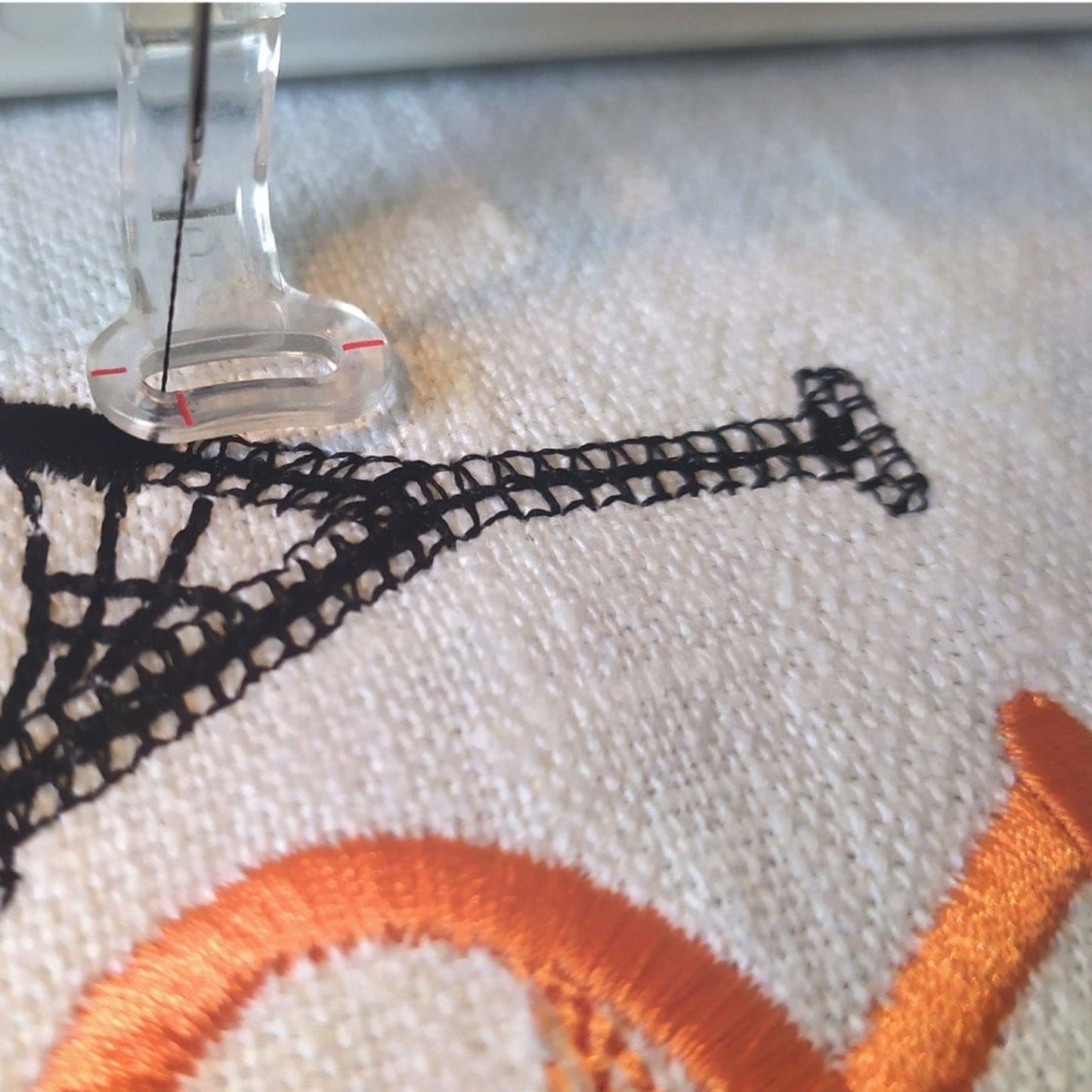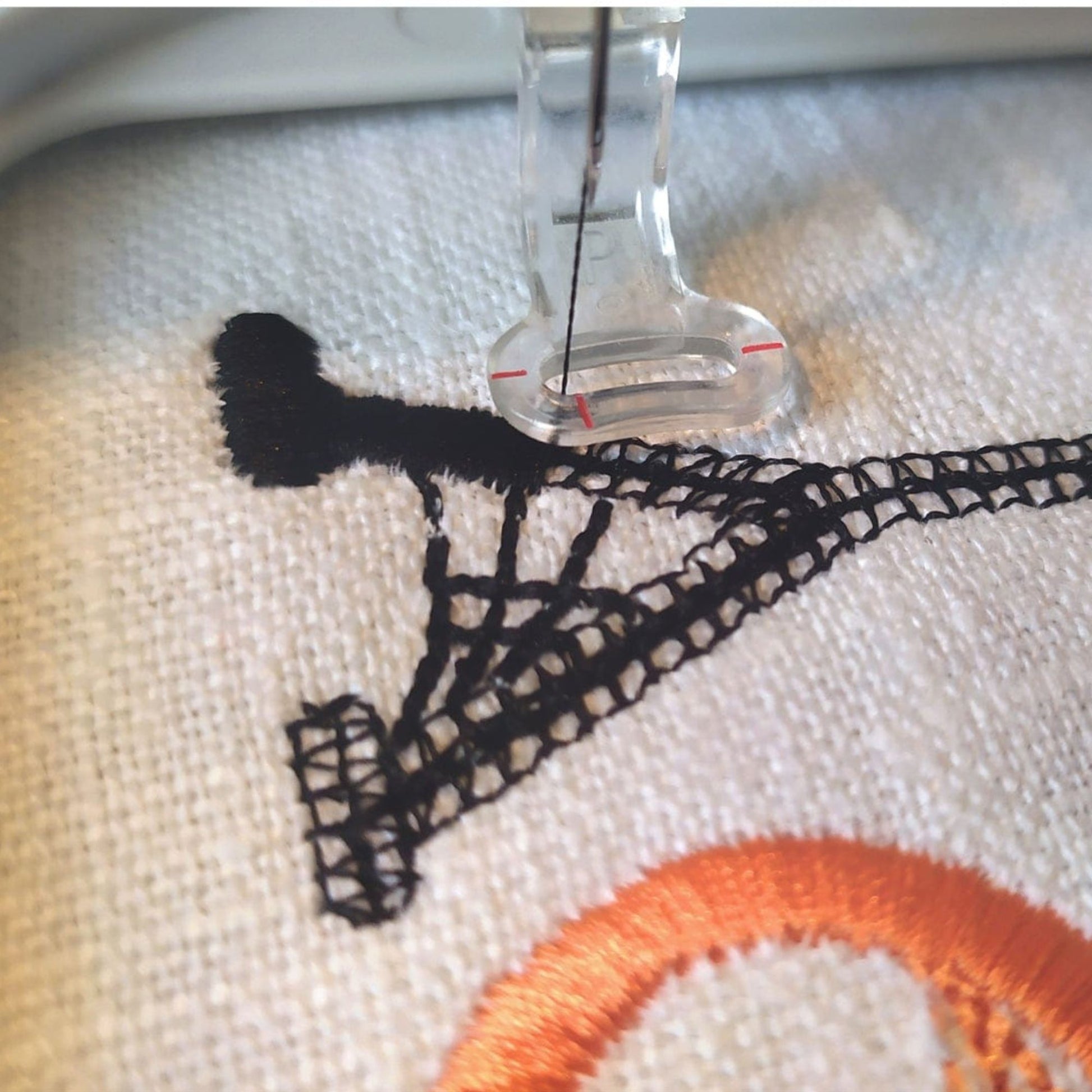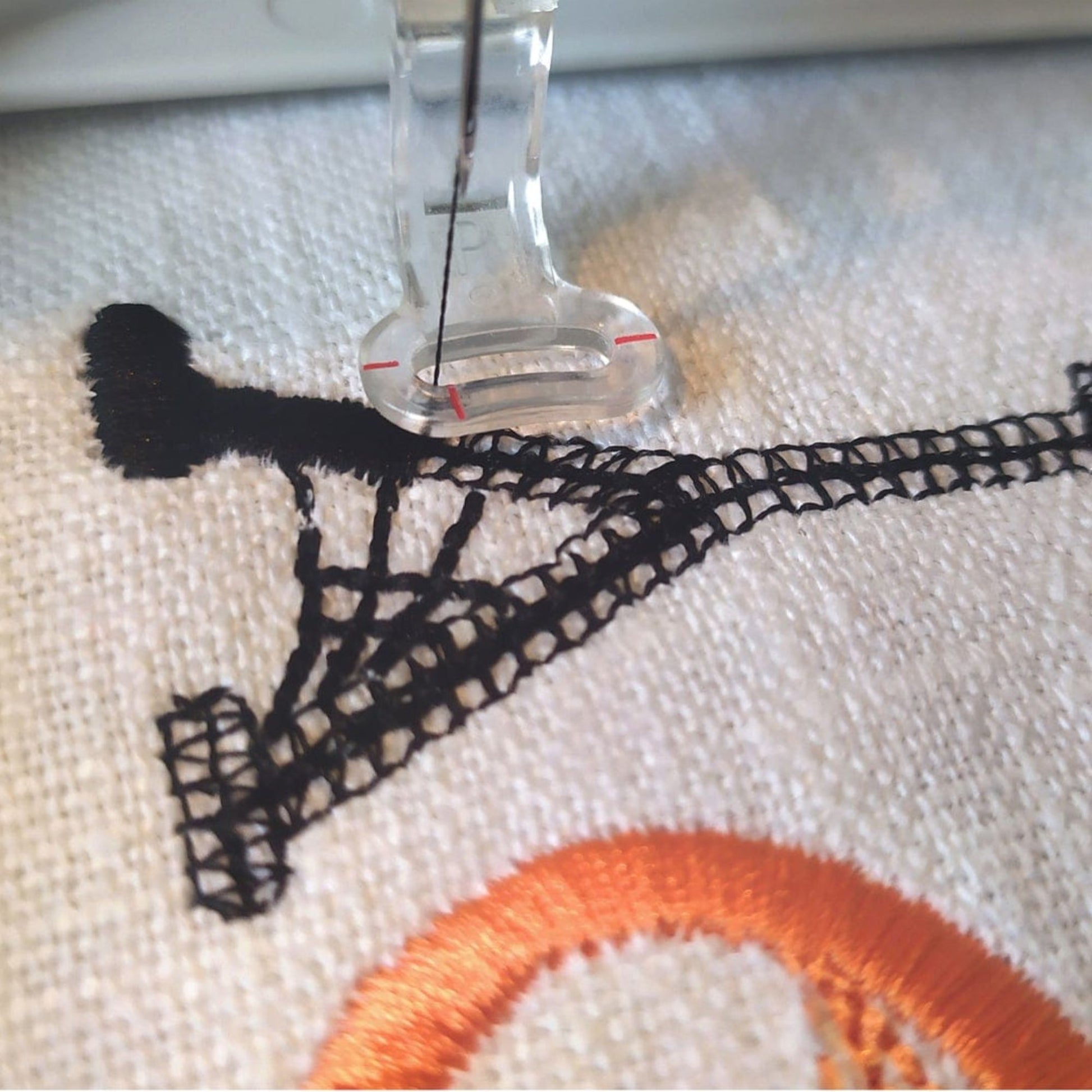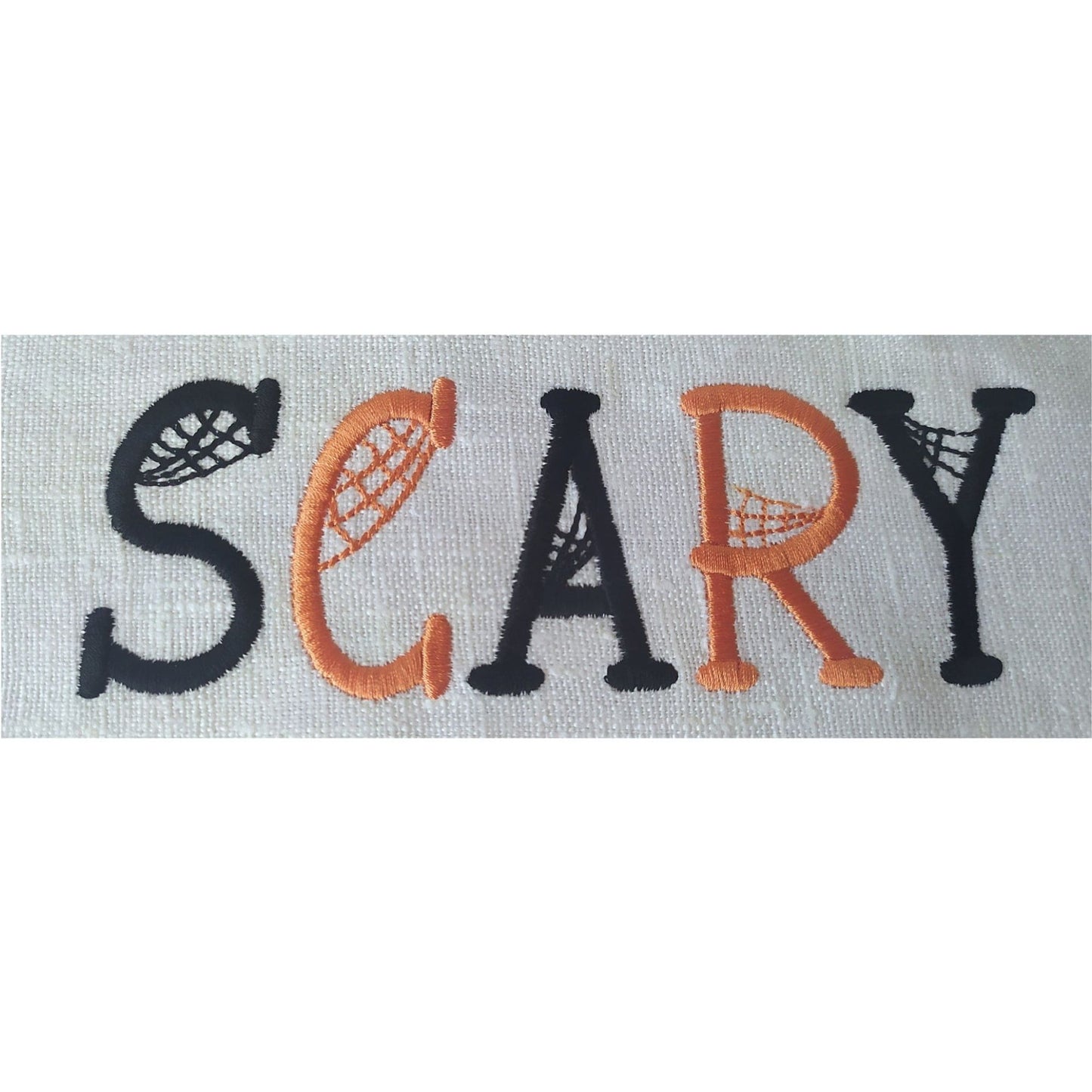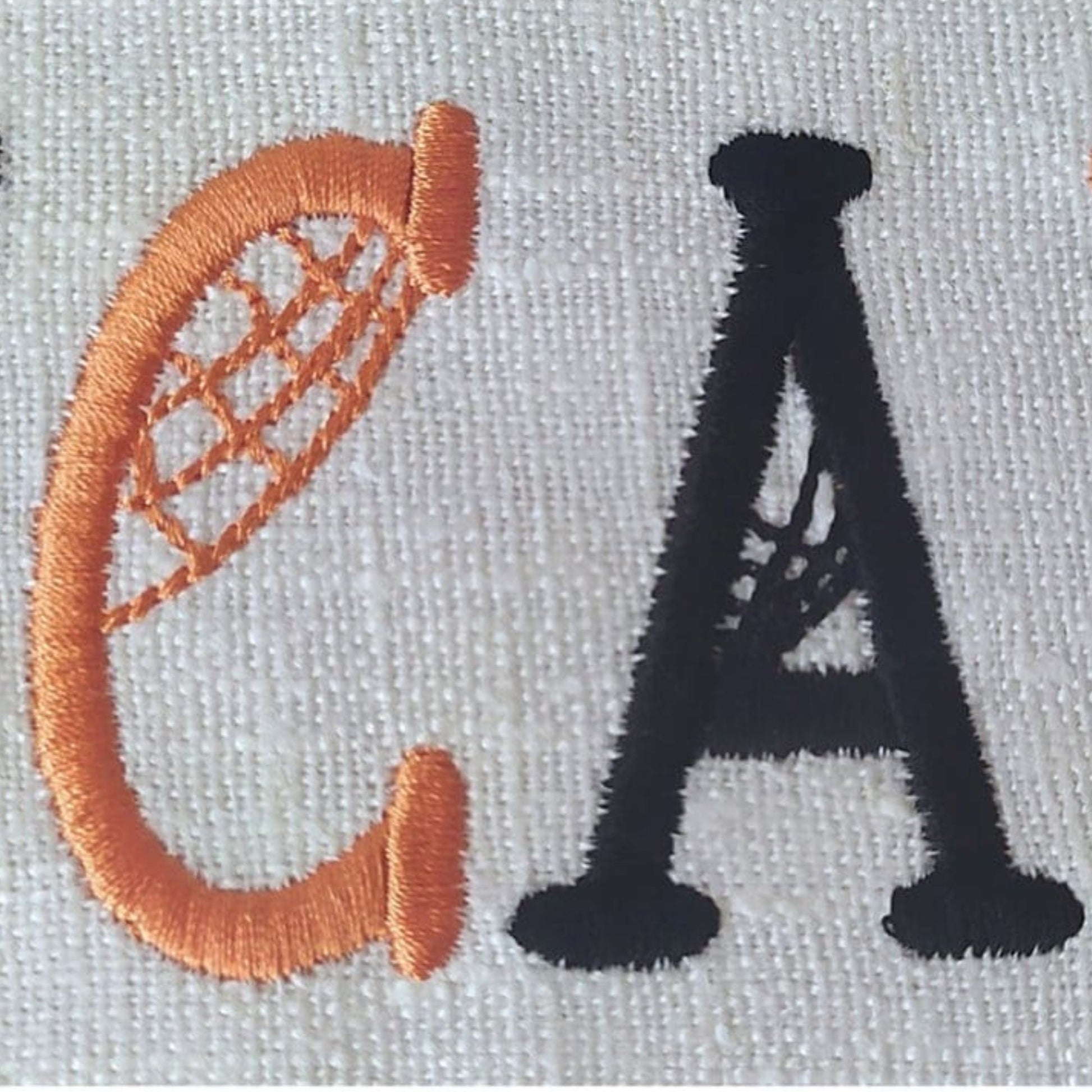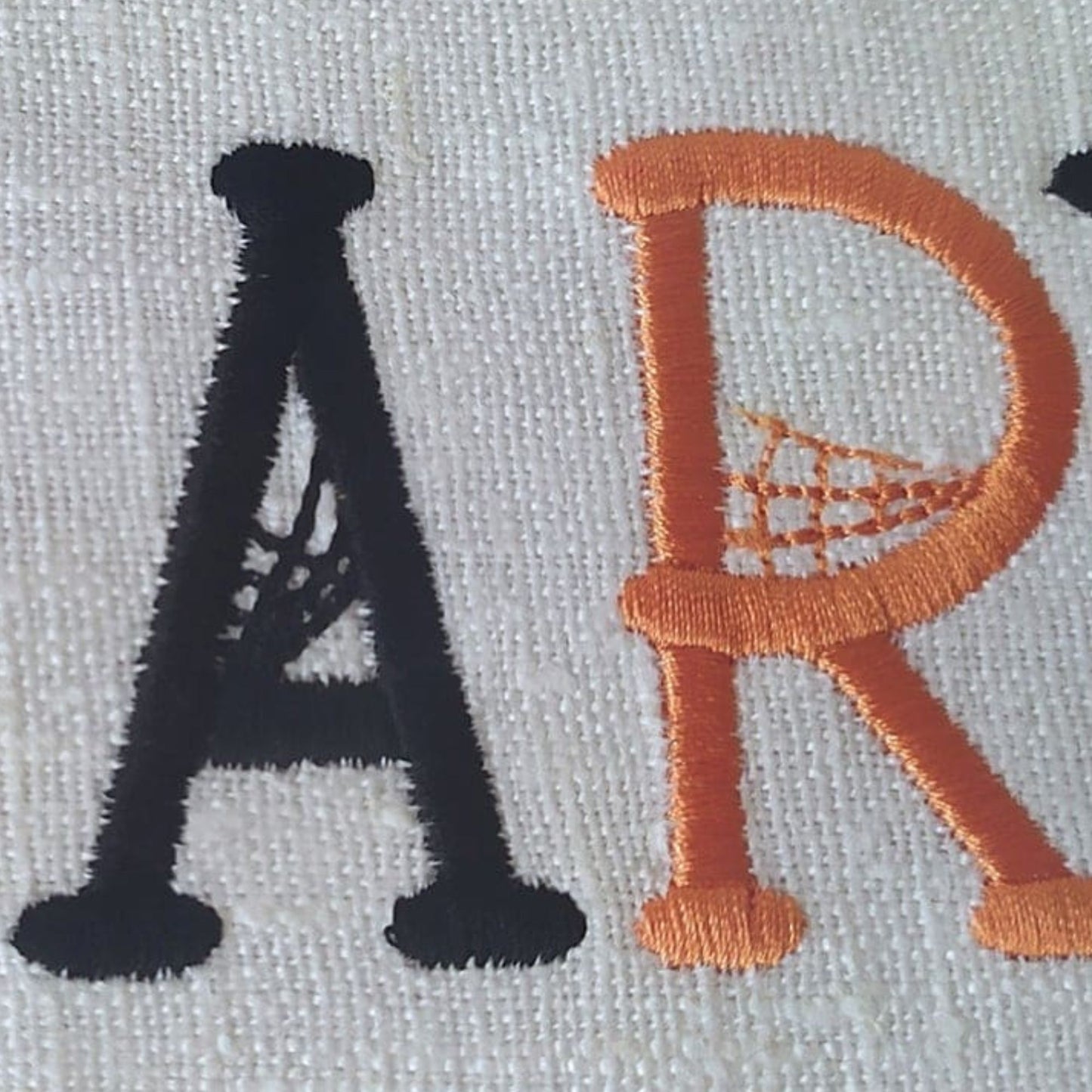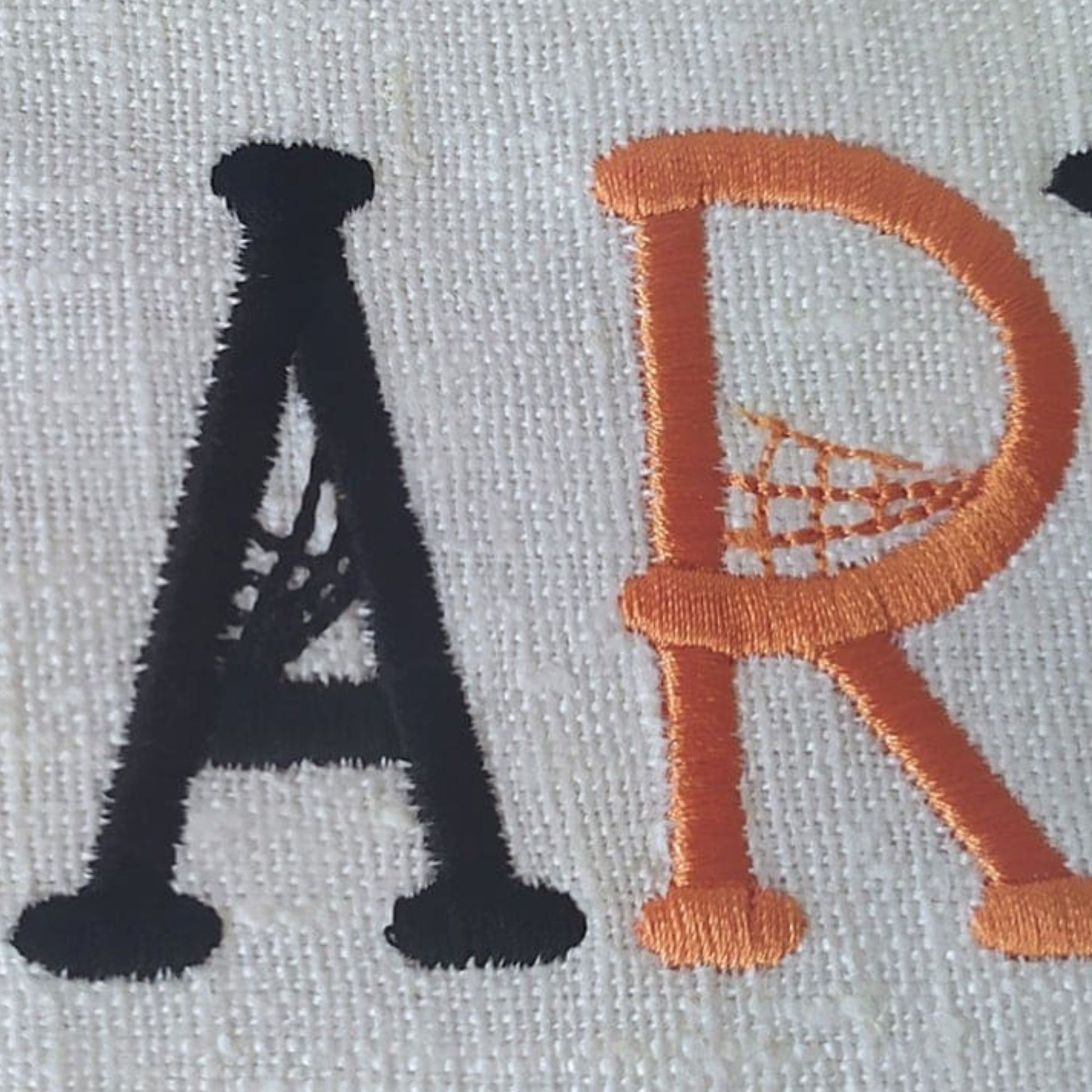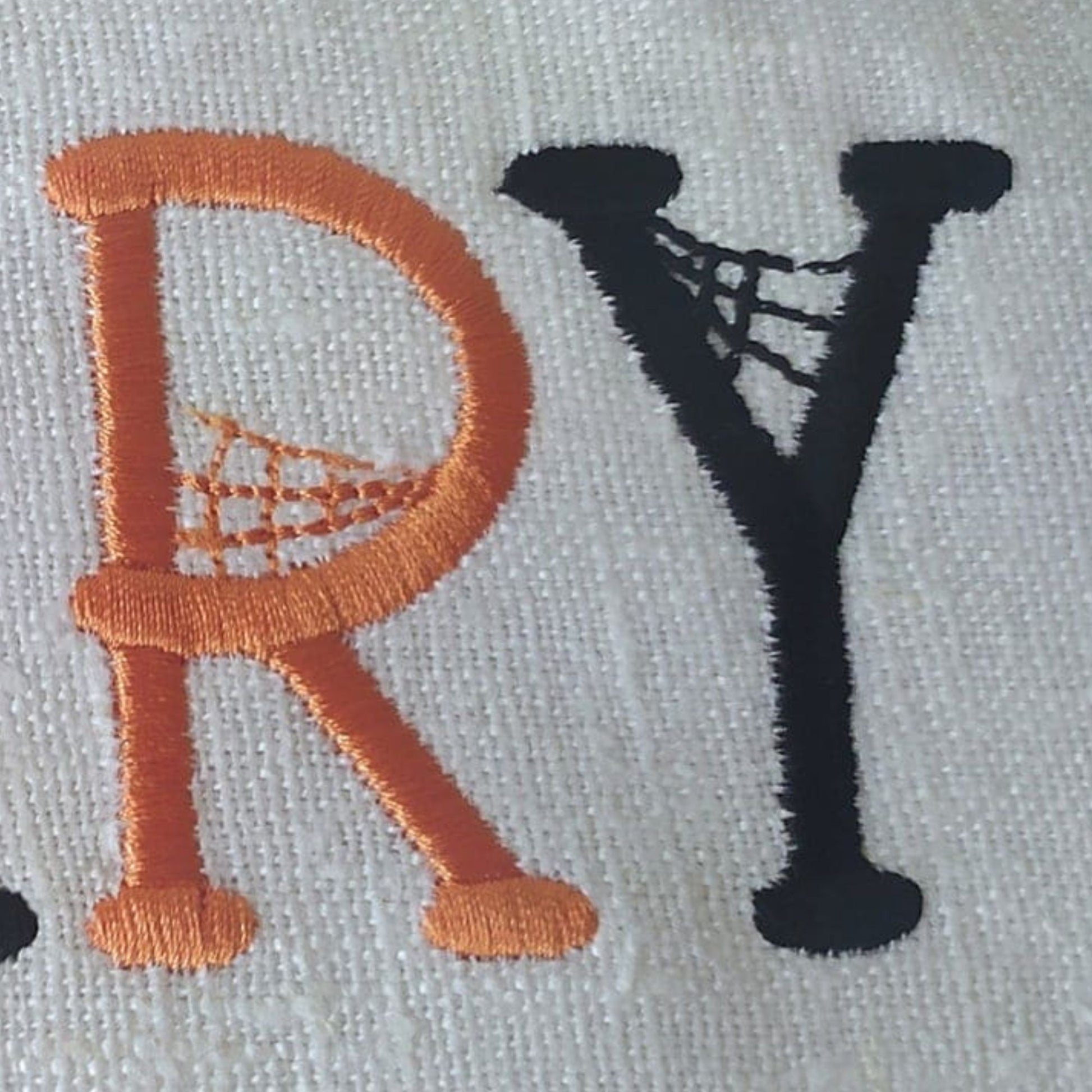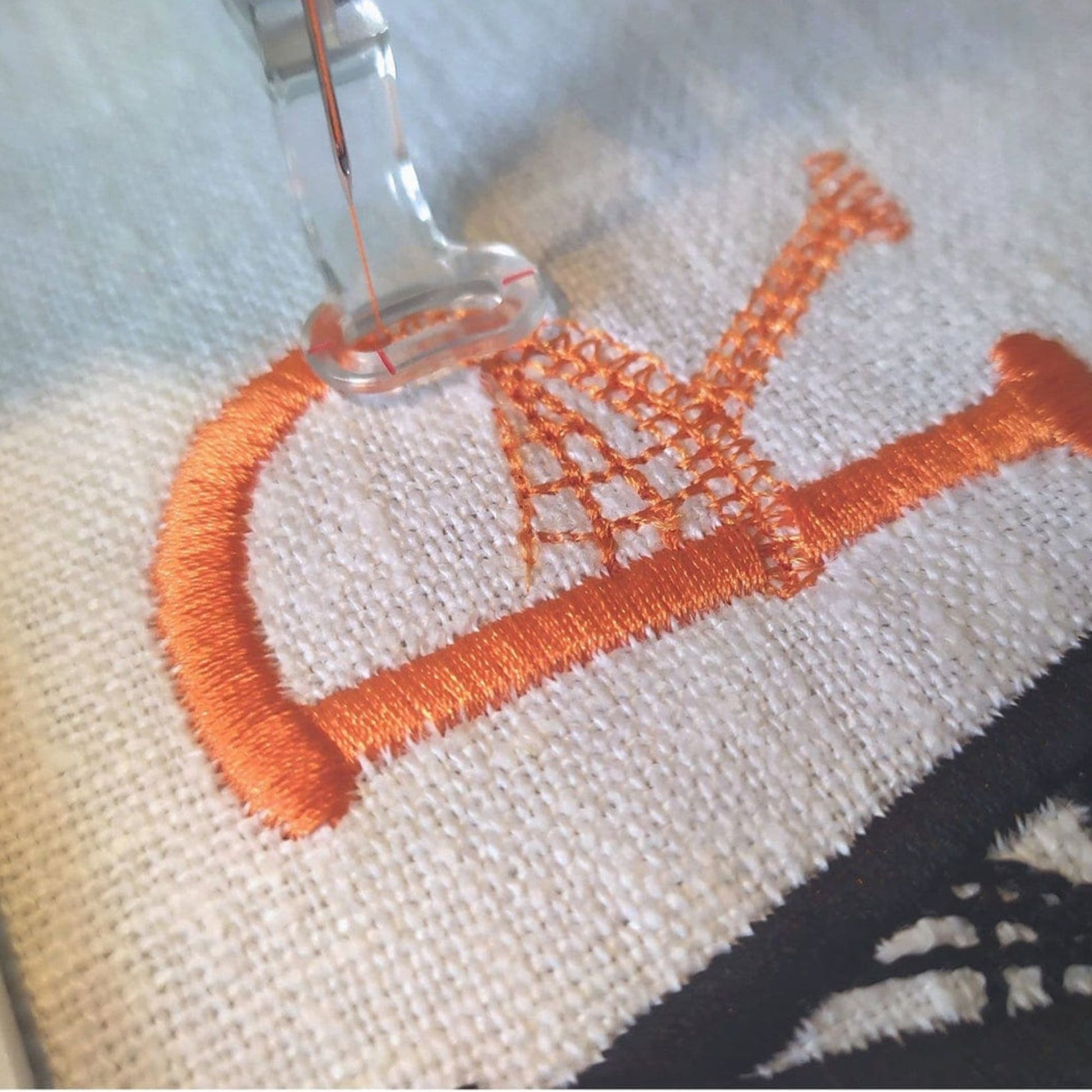
This is a very cute font and stitches out perfectly, looks great on Halloween bags!
Scary - Halloween embroidery font
- Included: A-Z (letters with cobwebs), A-Z (letters without cobwebs), 0-9 (numbers)
A strong choice for holiday makers who want fun lettering for Halloween projects and festive custom stitching.
This font stitched beautifully on some Halloween baskets I did. Everyone loves them.